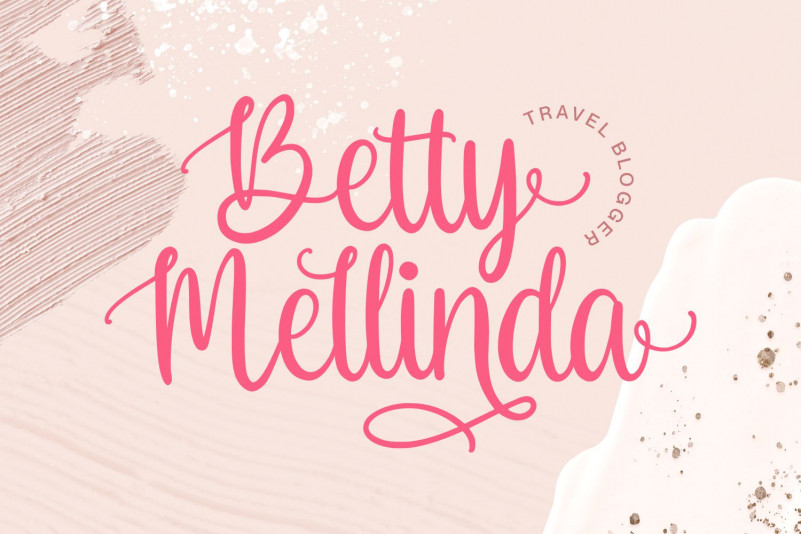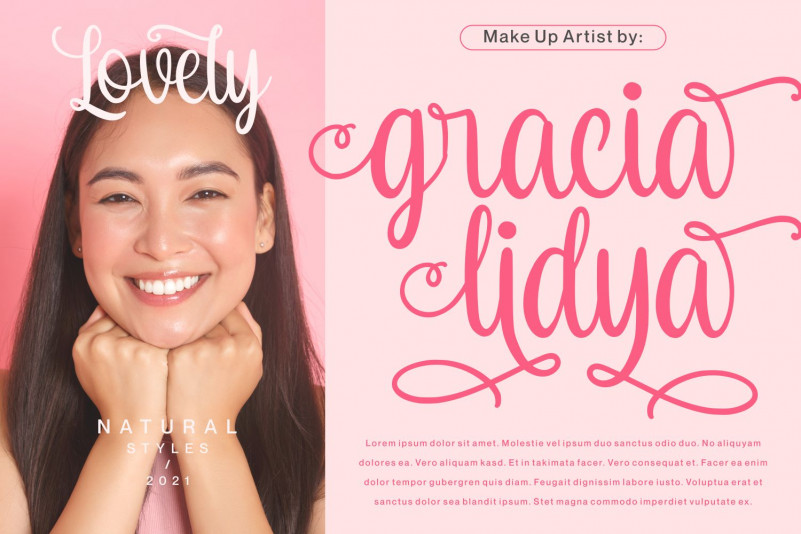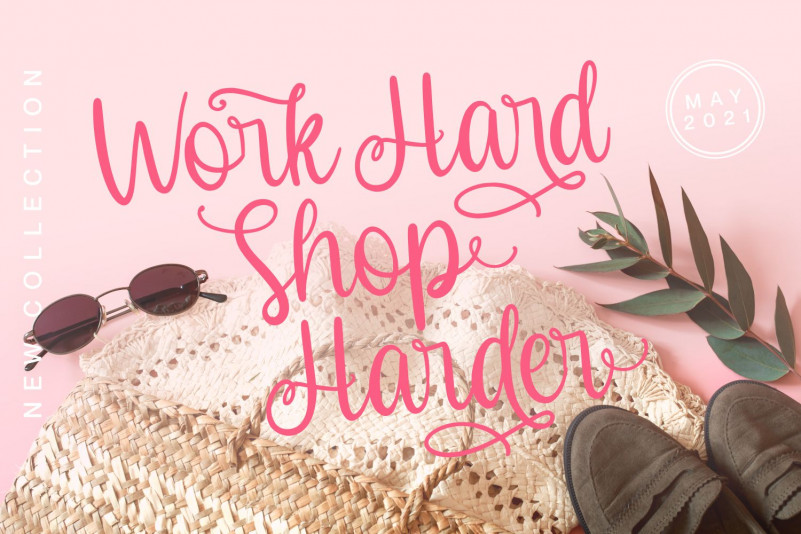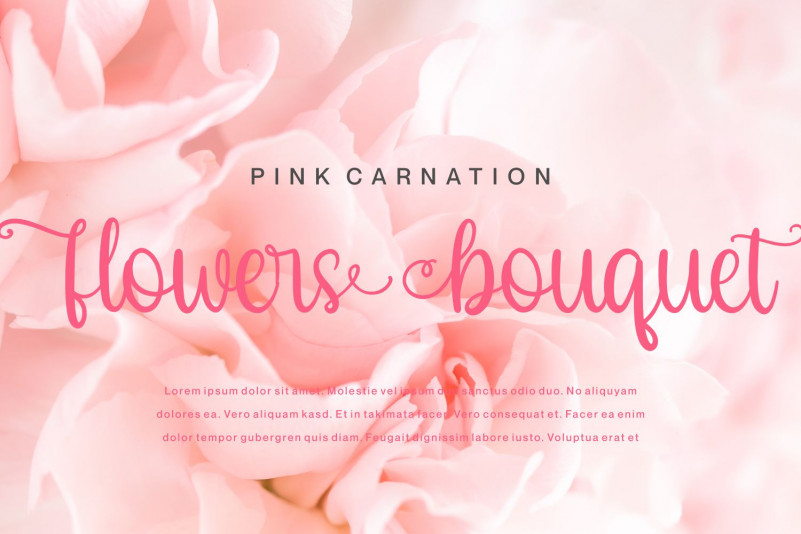
Goodness Cakes Calligraphy Font
This is a beautiful light handwritten font with a unique feel and a stunning impact. It will add a luxury spark to any design project that you wish to create!